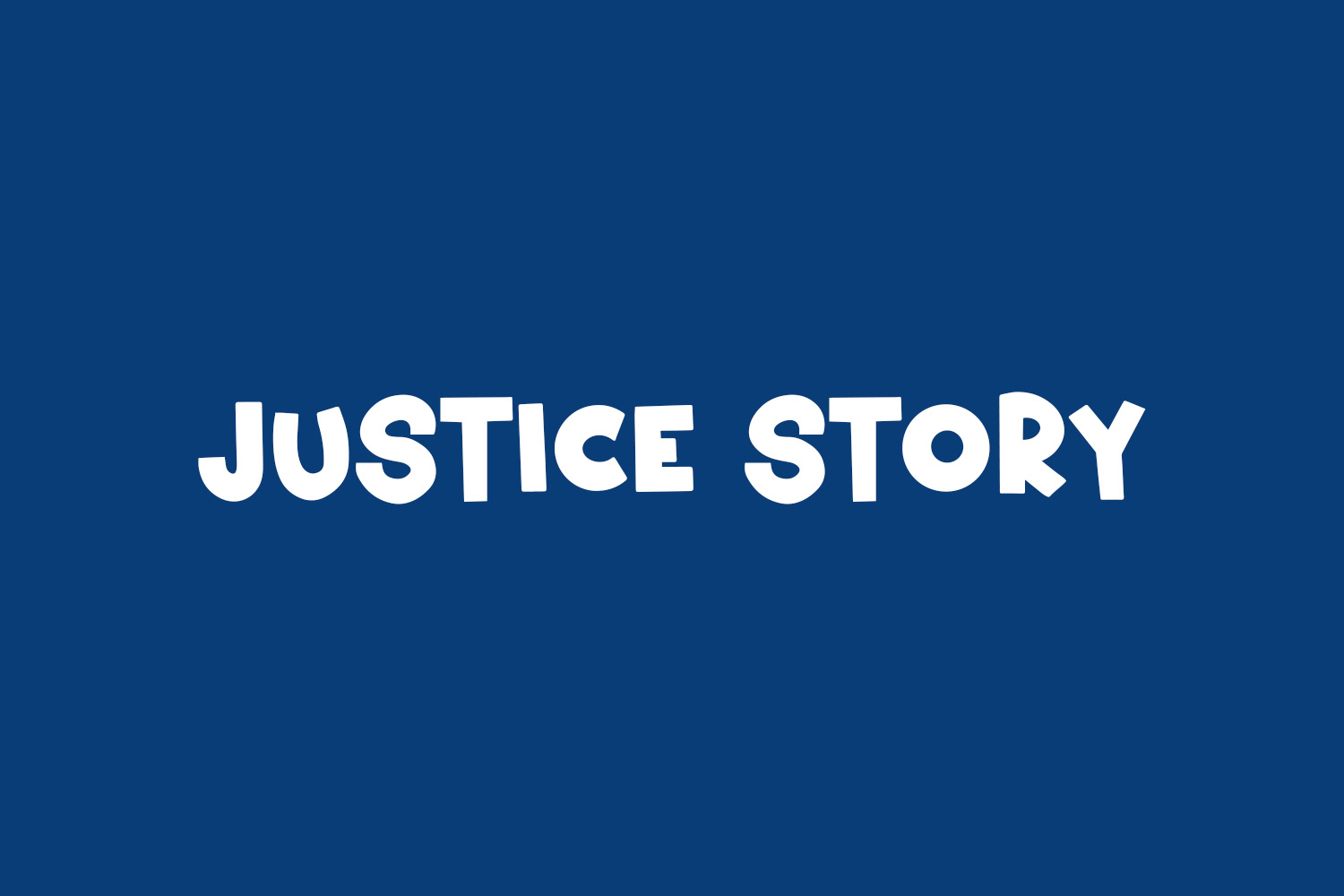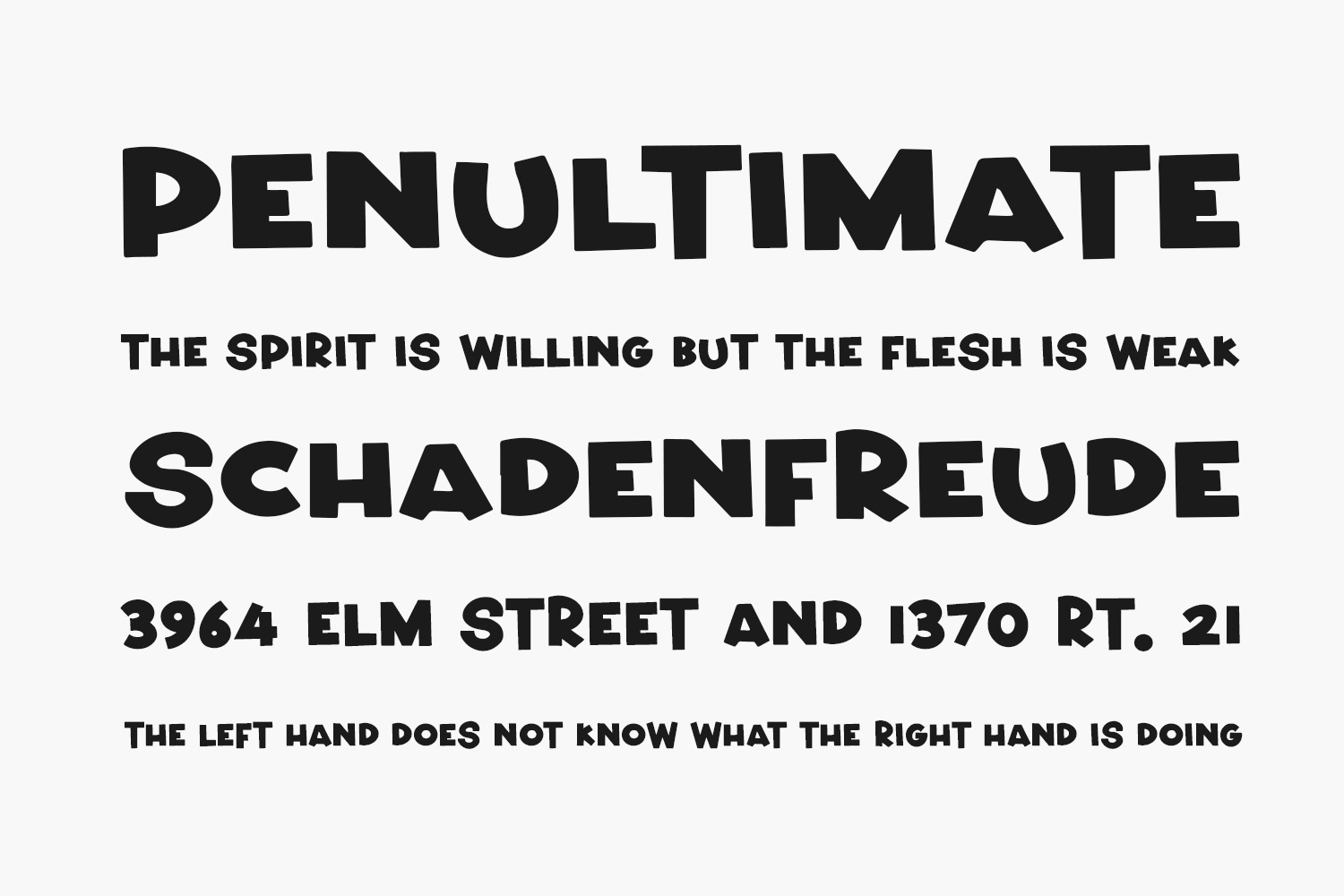
Introducing Justice Story Free Font, a playful and daring typeface that exudes a lively and stylish energy. Ideal for creative projects, headings, and presentations, this unique font adds a touch of fun and coolness. Its distinctive design is sure to captivate a diverse audience, making it perfect for everything from letterheads and titles to stationery. Elevate your designs with the whimsical charm of Justice Story. Justice Story Free Font is free for personal use only. Please purchase the full version for commercial use.
Designed by The Docallisme